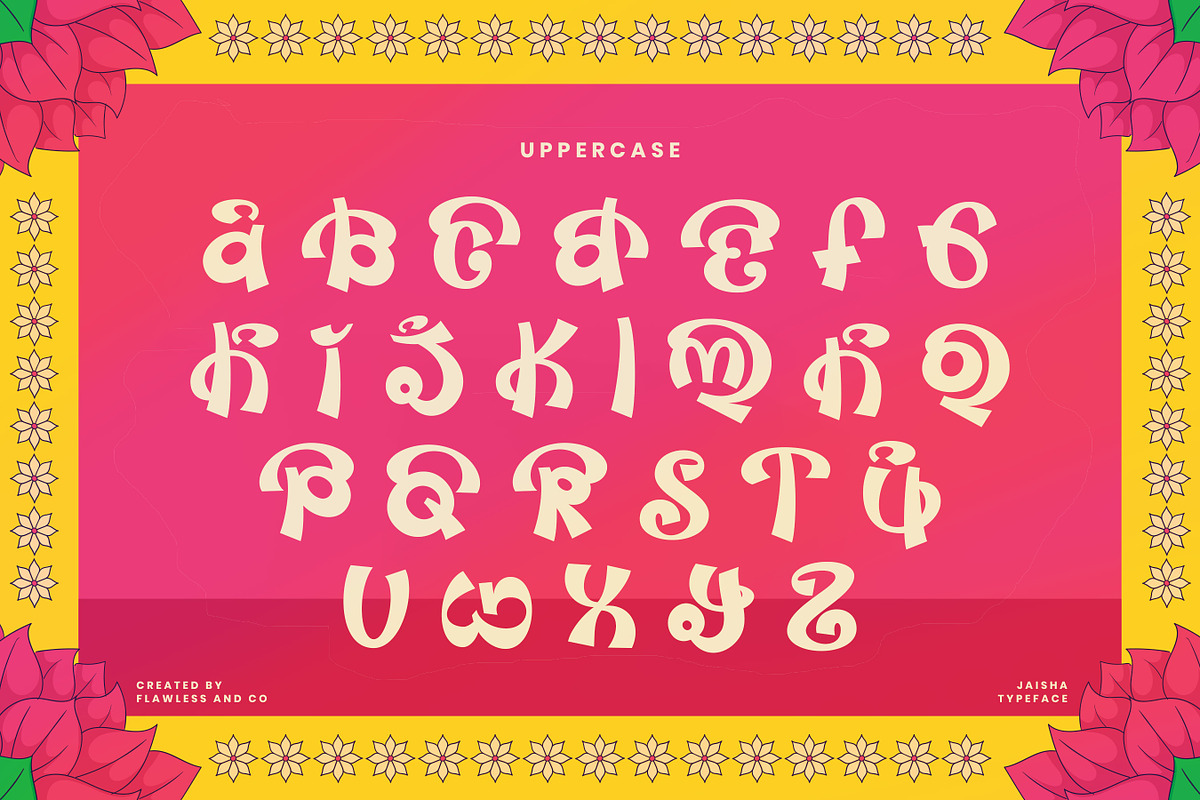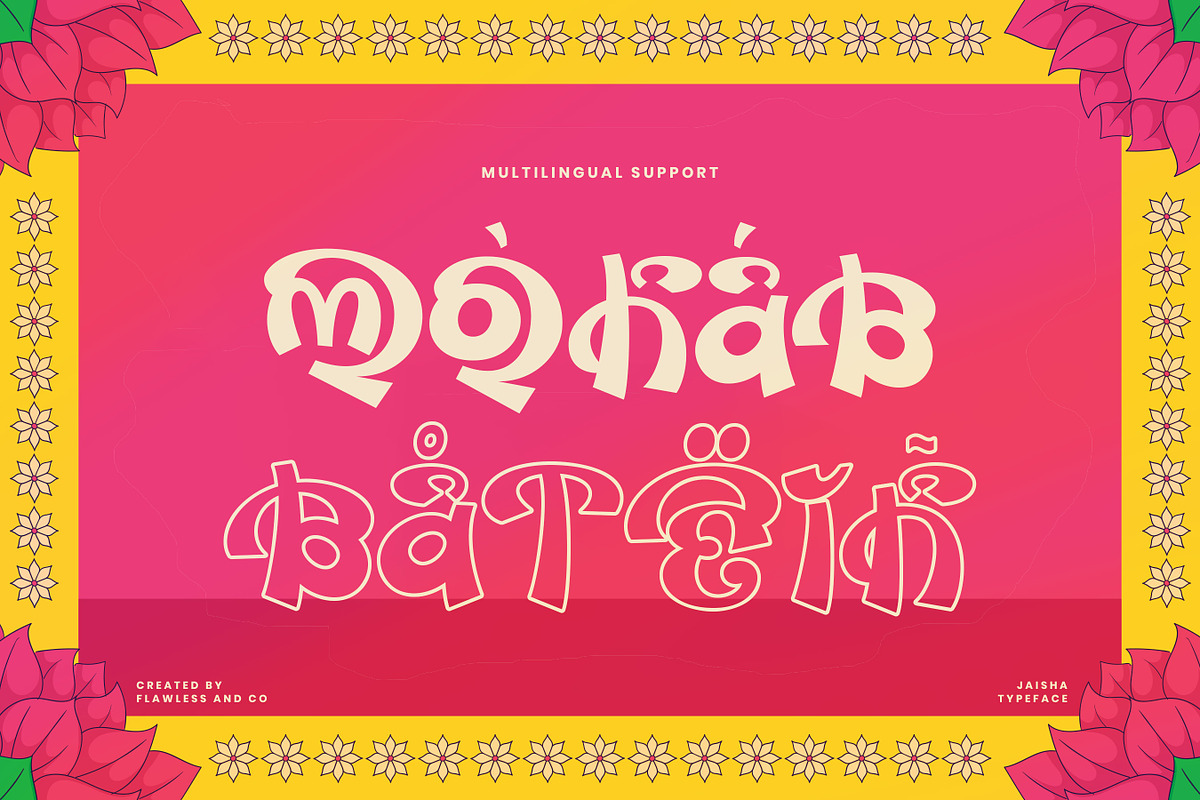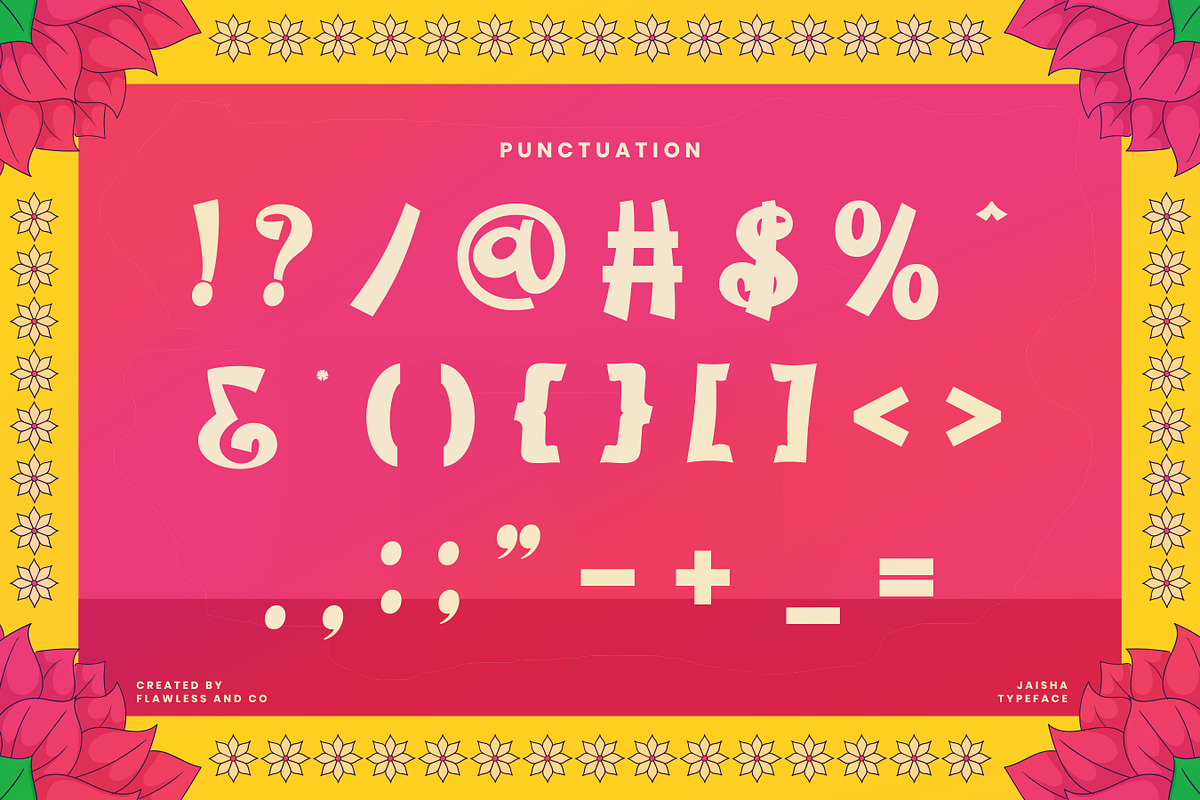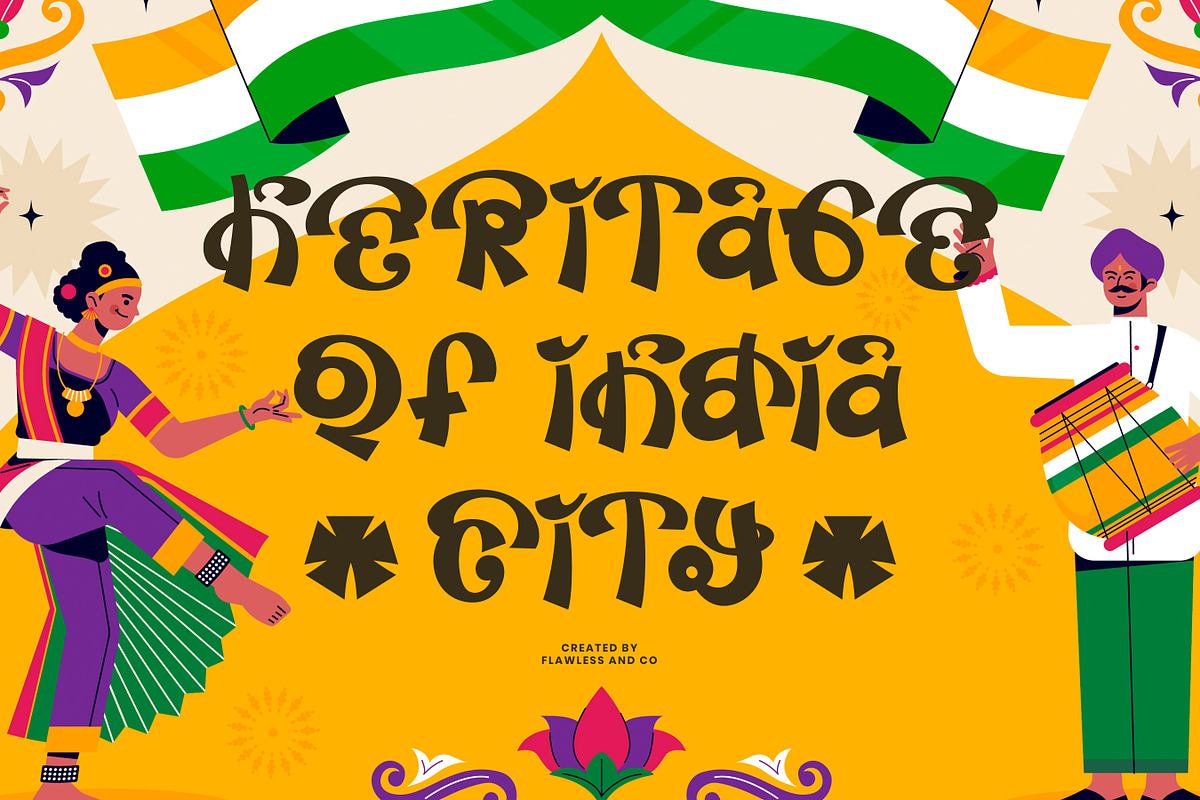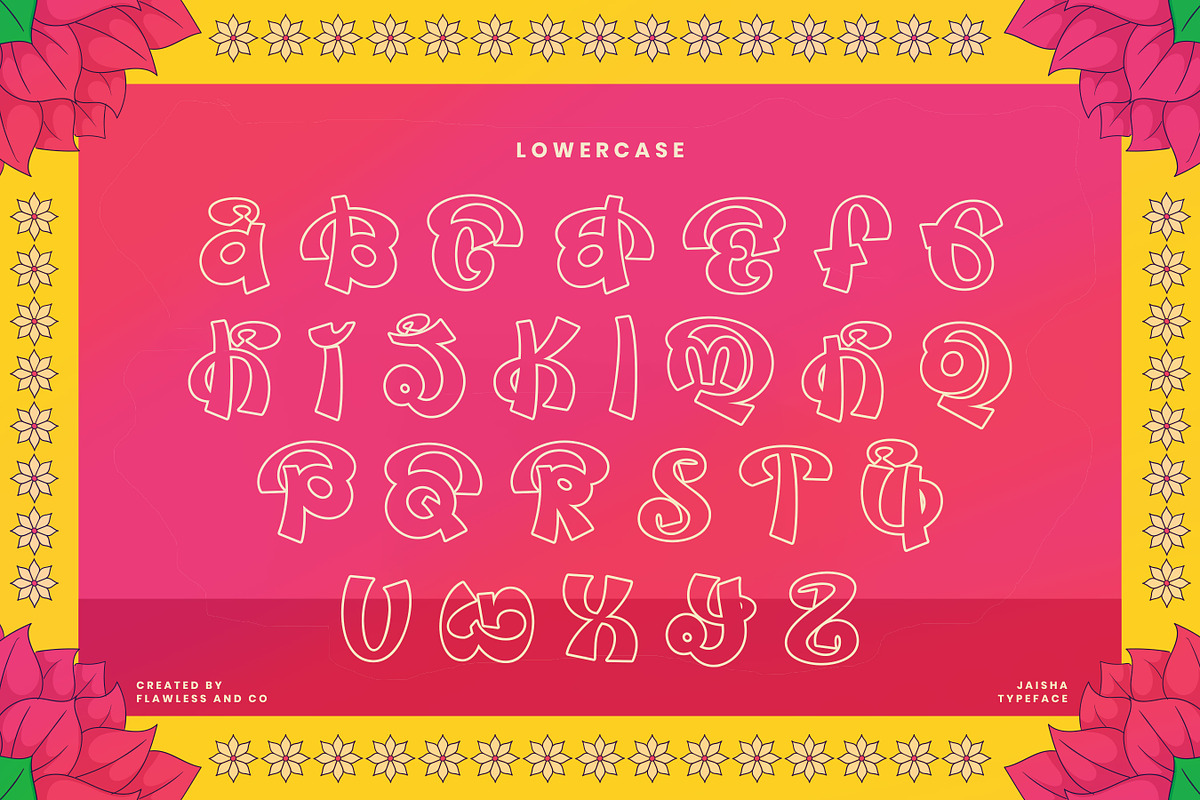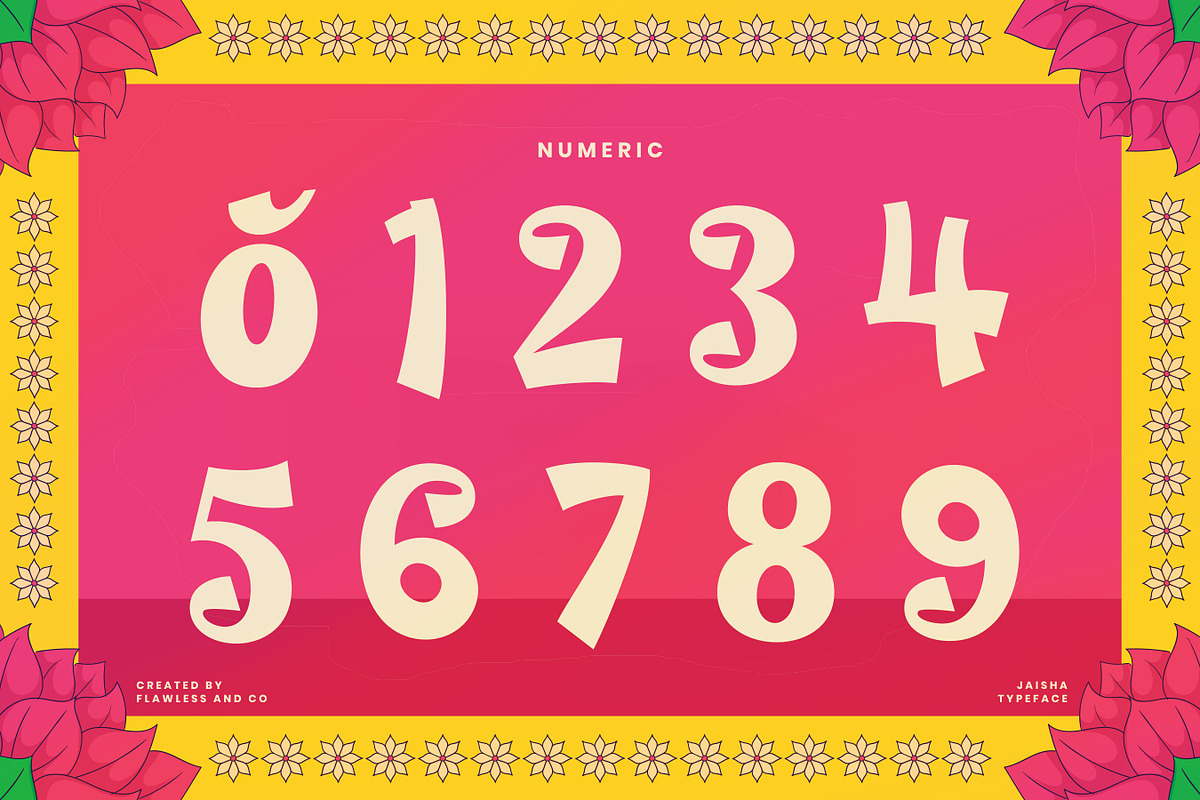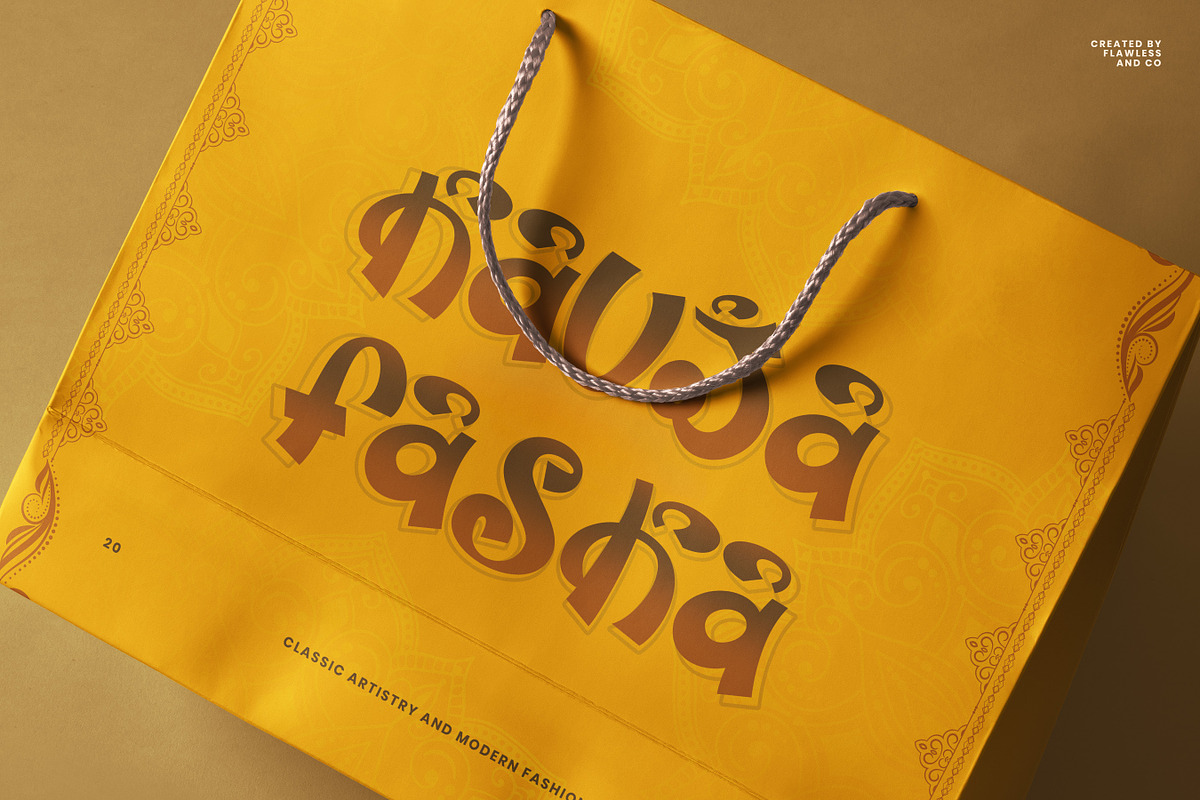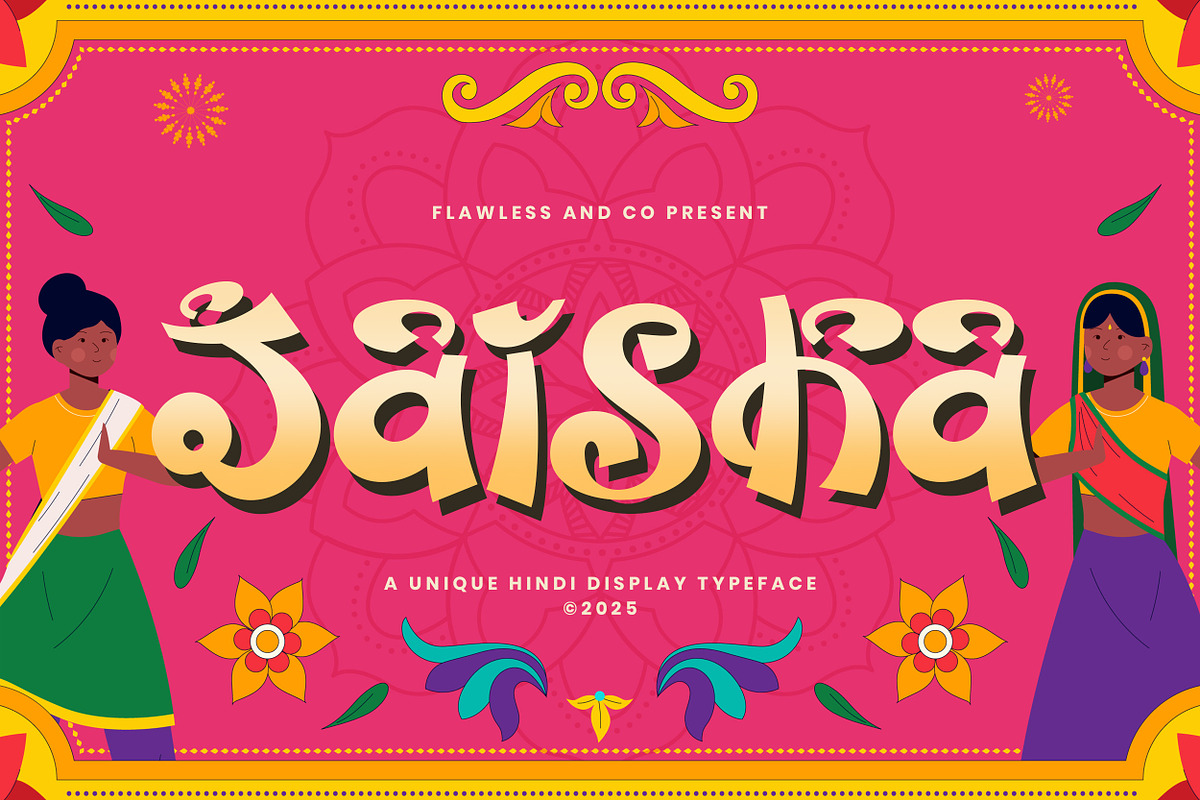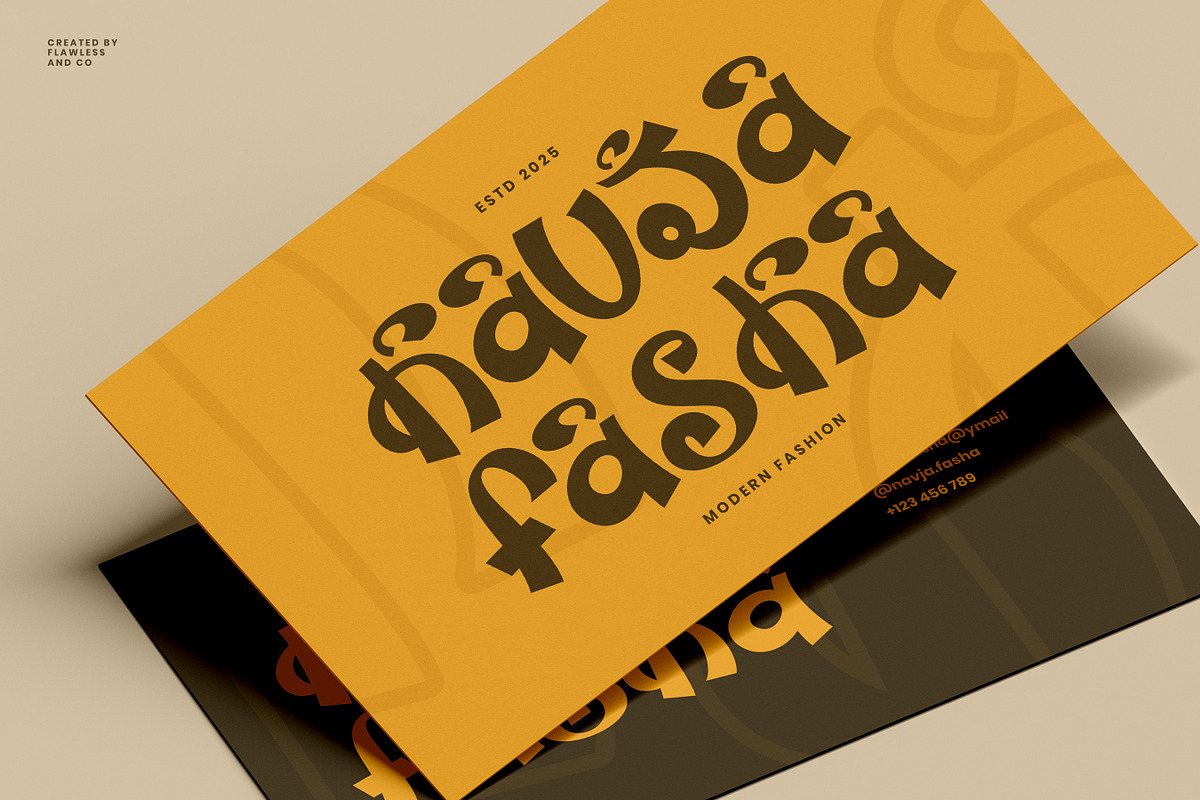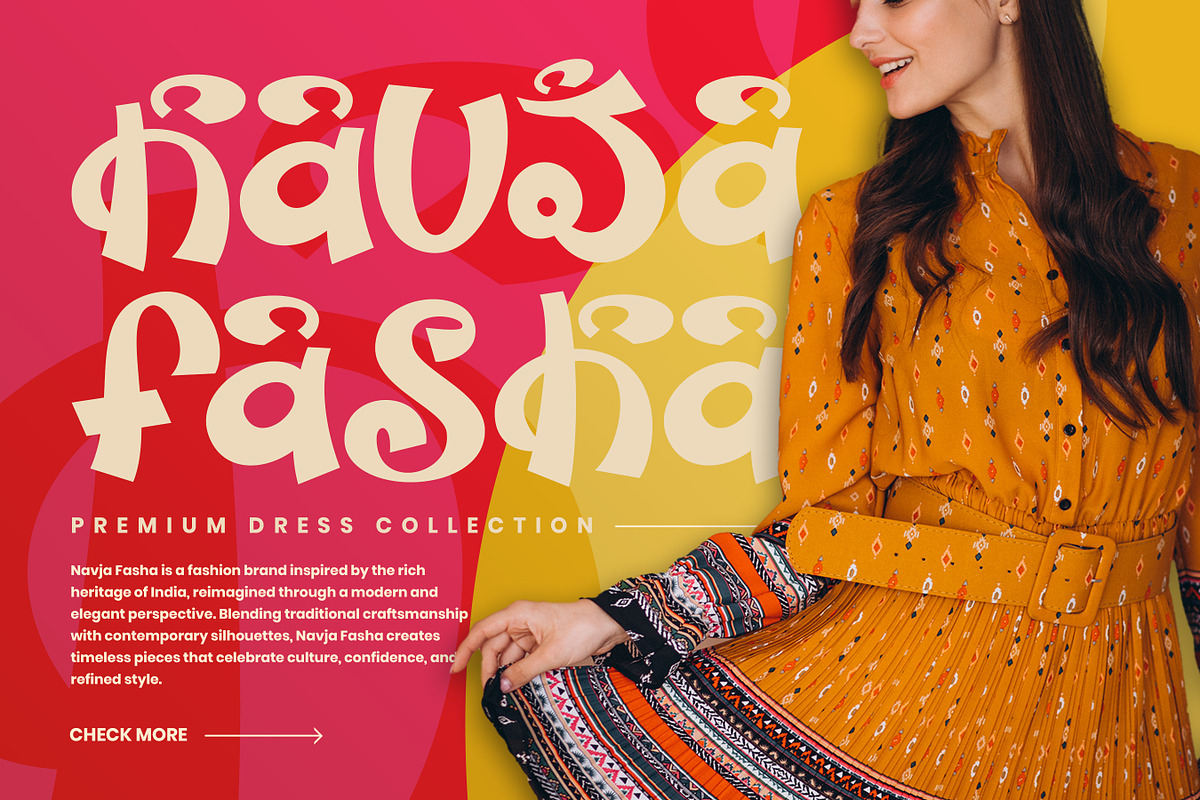
Jaisha - Hindi Display Font
Jaisha is a unique Hindi display typeface inspired by traditional Indian culture and festive visuals. Featuring bold shapes, playful curves, and expressive letterforms, Jaisha brings a joyful and eye-catching character to any design. This font is perfect for headlines, posters, branding, packaging, event designs, and cultural projects that need a strong identity with an authentic Indian feel.
Who Should Use Jaisha?
Jaisha is perfect for designers and creatives who want to bring a strong cultural and festive feel into their work. It’s ideal for branding, posters, event promotions, packaging, headlines, and social media designs that need bold, expressive, and eye-catching typography with an authentic Hindi touch.
Why Choose Jaisha for "Brand and Logo Projects?
Jaisha is a great choice for brand and logo projects because it offers a bold and distinctive Hindi style that instantly stands out. Its decorative display characters add cultural charm and strong visual impact, making logos and brand identities feel unique, memorable, and full of character.
Suitable For:
- Brand and logo design
- Cultural and ethnic branding
- Posters and headlines
- Packaging design
- Event and festival visuals
- Social media and promotional graphics